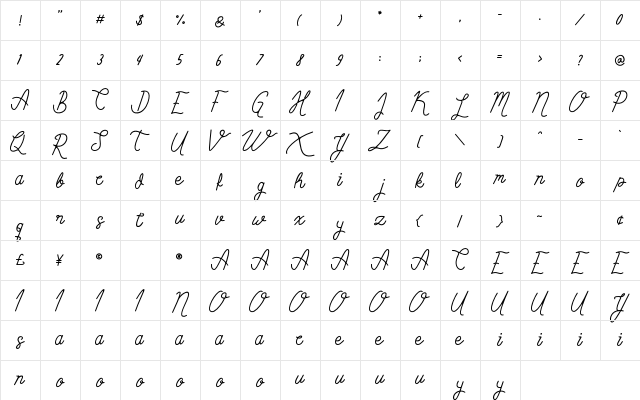
Simbok Pudjie Free
Foundry: Putracetol Studio
Designer: Putra Novembria Candra Kusuma
Design Context for Simbok Pudjie
Simbok Pudjie is a composed and adaptable typeface that performs quietly and consistently across a wide range of design contexts.